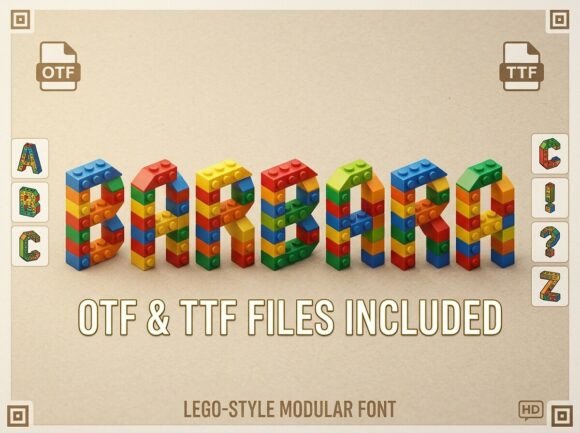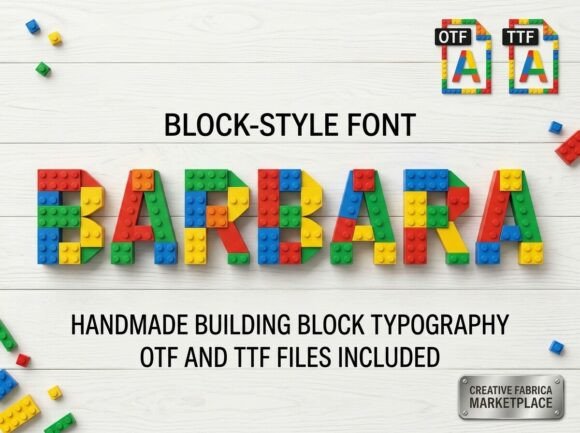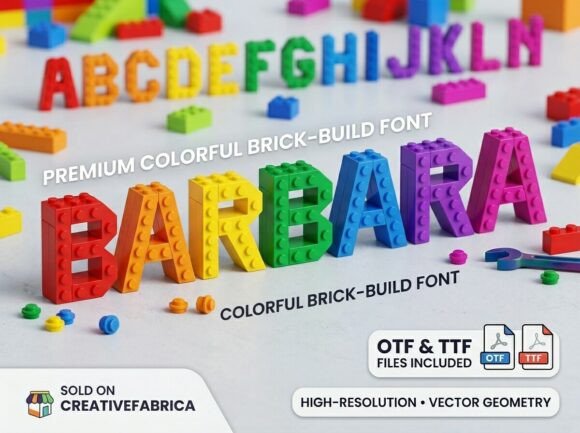
Introducing Barbara Font: The Ultimate Decorative Display Font
In the world of typography, a good font can make all the difference in a design project. If you’re looking for a font that can add a touch of elegance, sophistication, and creativity to your work, look no further than Barbara Font. This stunning decorative display font is designed to be the center of attention, featuring unique artistic elements and a strong visual personality that sets it apart from the ordinary.
Barbara Font is perfect for creators who want to break away from the crowd and make a statement with their designs. With its intricate details and creative letterforms, this font is ideal for high-impact designs where the typography needs to do the talking. Whether you’re designing a modern poster, a unique brand identity, or eye-catching social media content, Barbara Font adds an instant “wow” factor to any project.
One of the best things about Barbara Font is its versatility. This font is suitable for a wide range of design applications, from bold headlines and artistic logos to creative packaging and more. Despite its decorative nature, Barbara Font maintains a professional and polished finish, making it perfect for designs that require a touch of sophistication.
Key Features of Barbara Font
- Unique Artistic Elements: Barbara Font features unique artistic elements that set it apart from other fonts. Its creative letterforms and intricate details make it perfect for designs that require a touch of elegance and sophistication.
- Strong Visual Personality: This font has a strong visual personality that demands attention. Its bold and eye-catching design makes it perfect for high-impact designs where the typography needs to do the talking.
- Professional and Polished Finish: Despite its decorative nature, Barbara Font maintains a professional and polished finish, making it perfect for designs that require a touch of sophistication.
- Instant “Wow” Factor: Barbara Font adds an instant “wow” factor to any project, making it perfect for designs that require a touch of creativity and elegance.
How to Use Barbara Font in Your Designs
Barbara Font is easy to use and can be incorporated into a wide range of design projects. Here are a few ways you can use this stunning decorative display font in your designs:
- Modern Posters: Use Barbara Font to create eye-catching posters that demand attention. Its bold and creative design makes it perfect for posters that require a touch of elegance and sophistication.
- Unique Brand Identity: Create a unique brand identity with Barbara Font. Its strong visual personality and creative letterforms make it perfect for logos and branding materials that require a touch of creativity and elegance.
- Eye-Catching Social Media Content: Use Barbara Font to create eye-catching social media content that demands attention. Its bold and creative design makes it perfect for social media posts that require a touch of elegance and sophistication.
- Creative Packaging: Use Barbara Font to create creative packaging that stands out from the crowd. Its unique artistic elements and strong visual personality make it perfect for packaging designs that require a touch of creativity and elegance.
In conclusion, Barbara Font is a stunning decorative display font that is perfect for creators who want to break away from the ordinary. With its unique artistic elements, strong visual personality, and professional and polished finish, this font is ideal for high-impact designs where the typography needs to do the talking. Whether you’re designing a modern poster, a unique brand identity, or eye-catching social media content, Barbara Font adds an instant “wow” factor to any project. So why settle for an ordinary font when you can make a statement with Barbara Font?